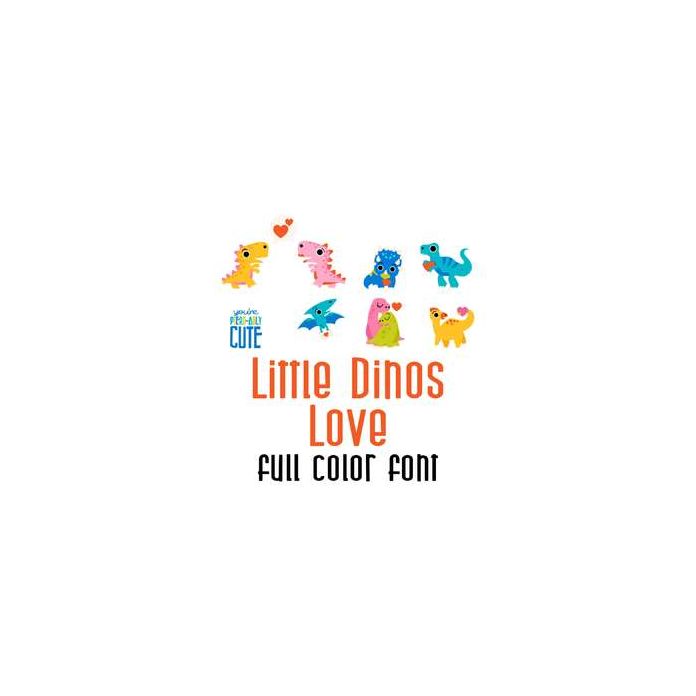
This adorable full color doodlebat font features fun dinosaurs in love. Perfect for cards, crafts, gifts, decor, scrap book pages, planner stickers, Valentine's and more!